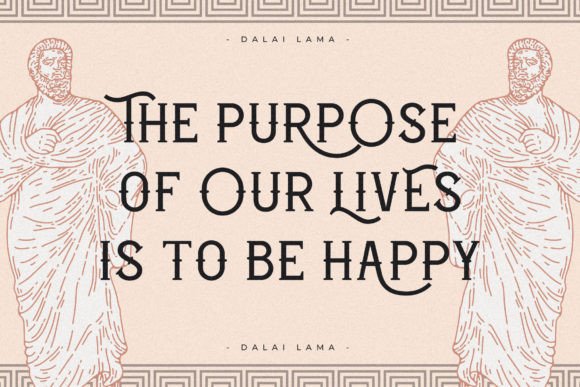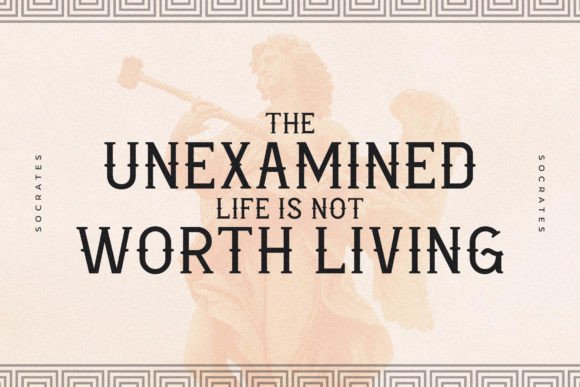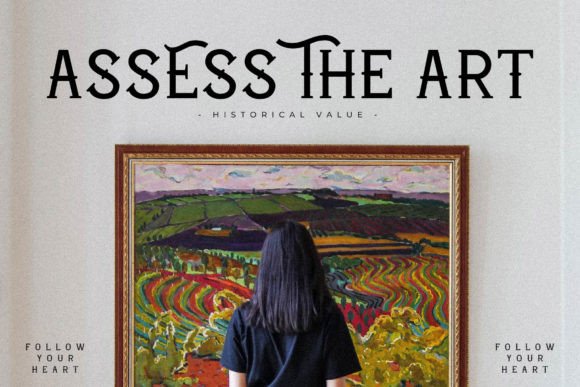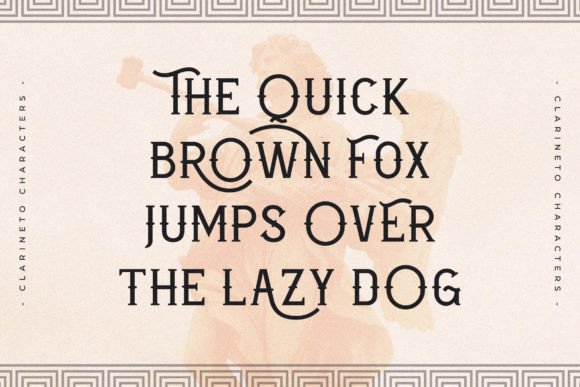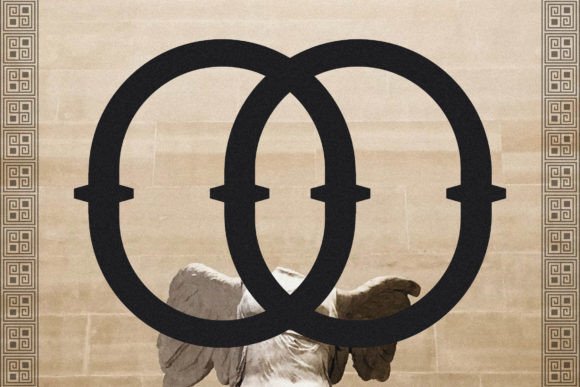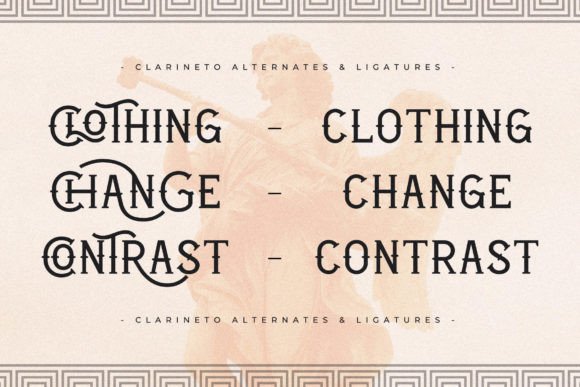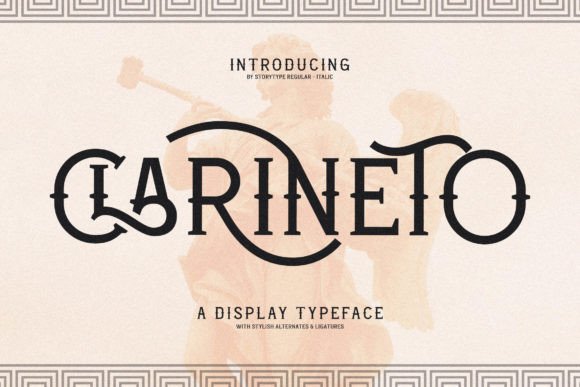
Introducing Clarineto Font: Elevate Your Designs with Elegance and Style
In the world of typography, fonts play a crucial role in conveying the tone and aesthetic of a design. For those seeking a touch of sophistication and vintage charm, Clarineto Font emerges as an exceptional choice. This stylish and elegant serif font is designed to enhance your classic, vintage, and retro-themed projects, offering a distinct form and appearance that sets it apart from other fonts.
What Makes Clarineto Font Stand Out?
Clarineto Font boasts a unique blend of traditional and modern elements, making it an ideal selection for designers and crafters looking to infuse their work with a sense of nostalgia and refinement. Its serif design adds a touch of classic elegance, while its clean lines and balanced proportions ensure readability and versatility.
Key Features of Clarineto Font
- Stylish and Elegant Design: Clarineto Font’s sophisticated appearance makes it perfect for projects that demand a high level of elegance and poise.
- Suitable for Various Themes: Whether you’re working on a classic, vintage, or retro-themed design, Clarineto Font adapts seamlessly, adding a touch of authenticity and charm.
- Distinct Form and Appearance: The font’s unique characteristics set it apart from other serif fonts, ensuring your designs stand out with a distinctive look.
- High Readability: Clarineto Font’s clear and balanced design ensures that your text remains readable, even at smaller sizes.
Use Cases for Clarineto Font
Clarineto Font’s versatility makes it suitable for a wide range of design projects. Here are some use cases where this font truly shines:
- Branding and Logo Design: Create a lasting impression with Clarineto Font’s elegant and sophisticated appearance, perfect for luxury brands and high-end products.
- Print Materials: Elevate your business cards, brochures, and posters with a touch of classic elegance, making your print materials stand out.
- Web Design: Enhance your website’s aesthetic with Clarineto Font, adding a sense of sophistication and refinement to your online presence.
- Packaging Design: Add a vintage or retro touch to your product packaging, making it more appealing and distinctive.
Tips for Using Clarineto Font Effectively
To make the most of Clarineto Font, consider the following tips:
- Pair with Complementary Fonts: Combine Clarineto Font with sans-serif fonts for a striking contrast, or with other serif fonts for a harmonious look.
- Experiment with Colors: Try pairing Clarineto Font with rich, bold colors to enhance its vintage appeal, or with muted tones for a more subtle look.
- Adjust Font Sizes: Play with font sizes to create visual hierarchy and emphasize key elements in your design.
Clarineto Font offers a unique blend of elegance, style, and versatility, making it an excellent addition to any designer’s toolkit. Whether you’re working on a classic, vintage, or retro-themed project, this stylish and elegant serif font is sure to elevate your designs and leave a lasting impression.
Discover the world of possibilities with Clarineto Font and bring a touch of sophistication and refinement to your creations.